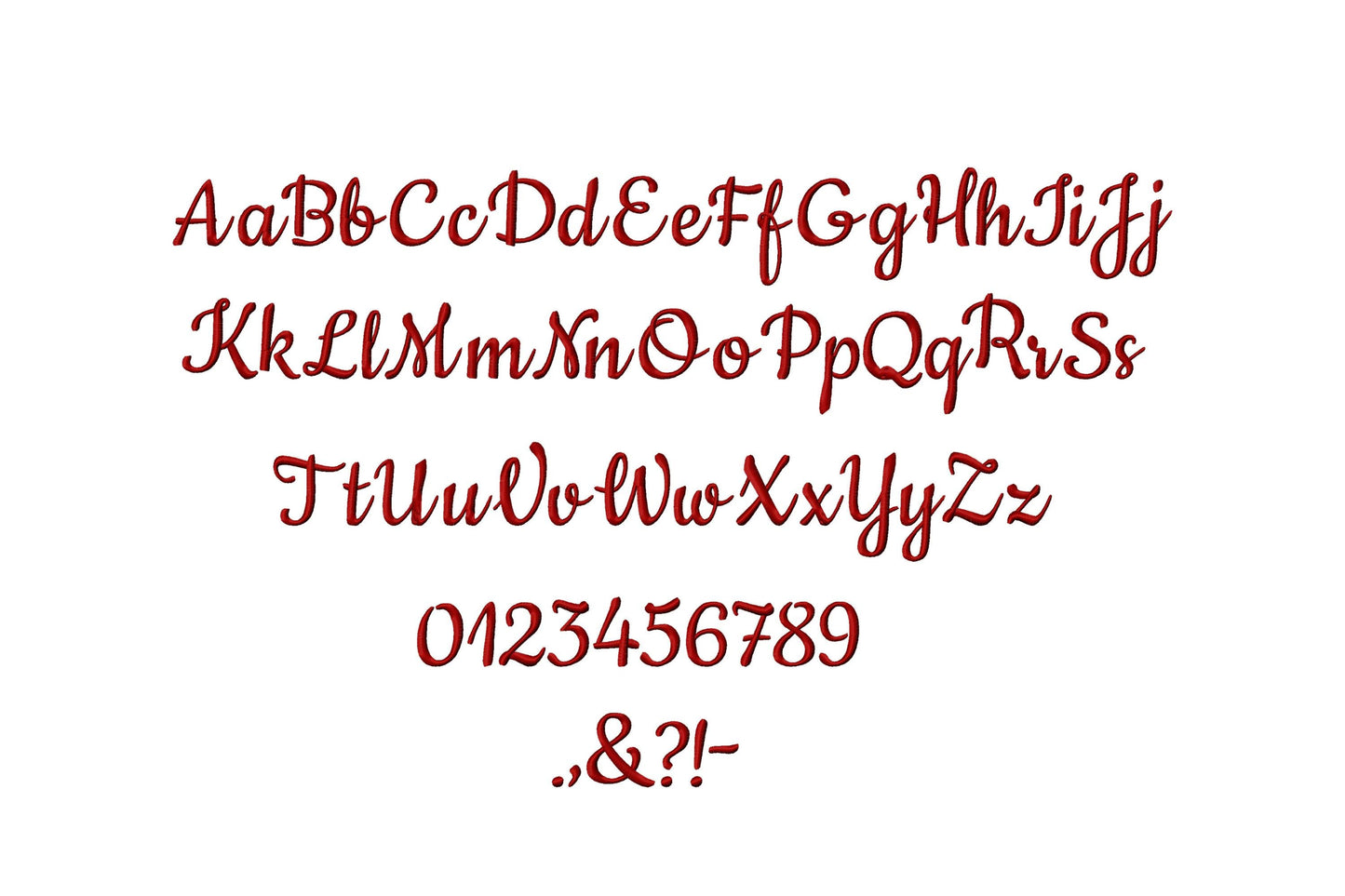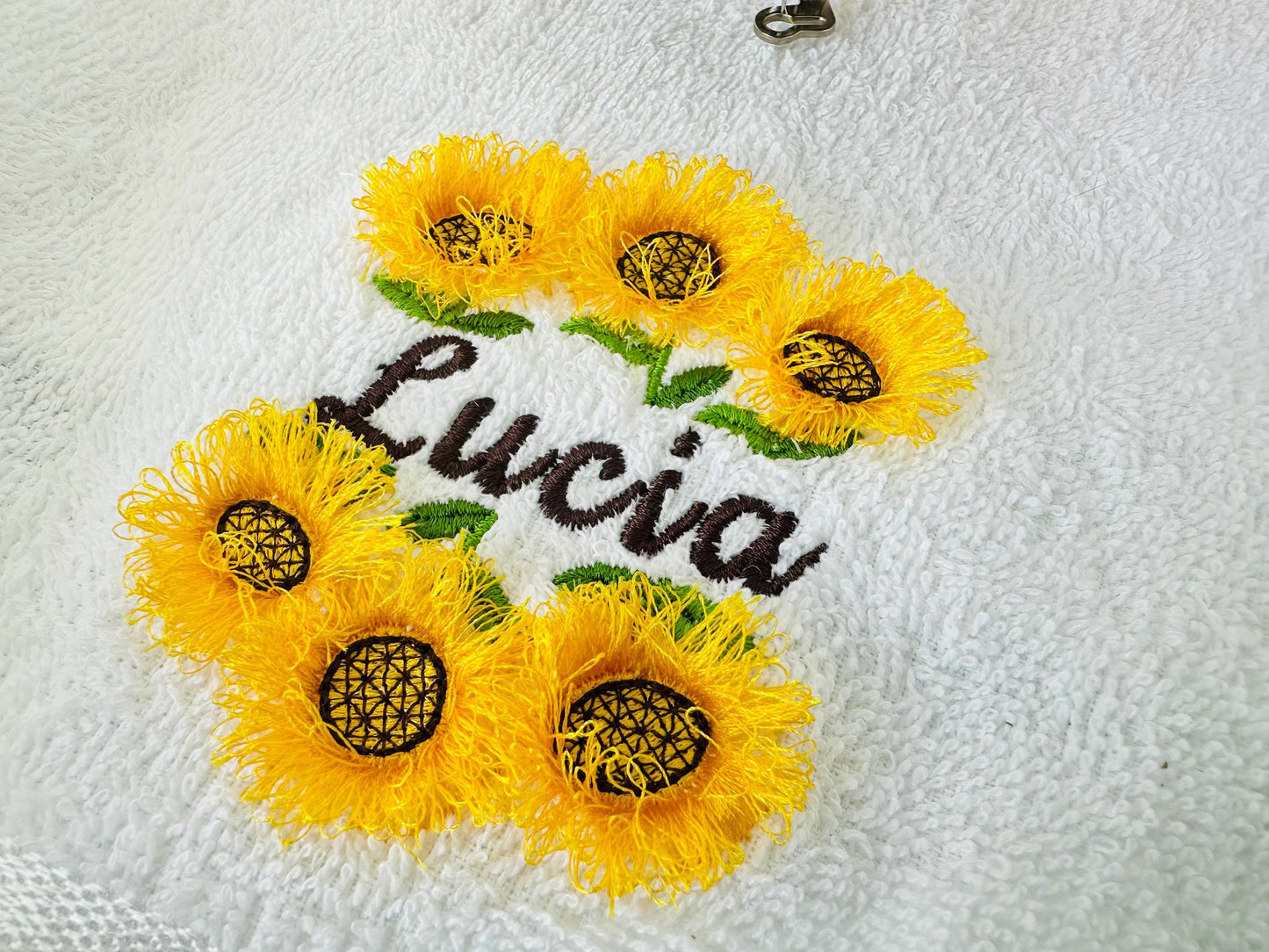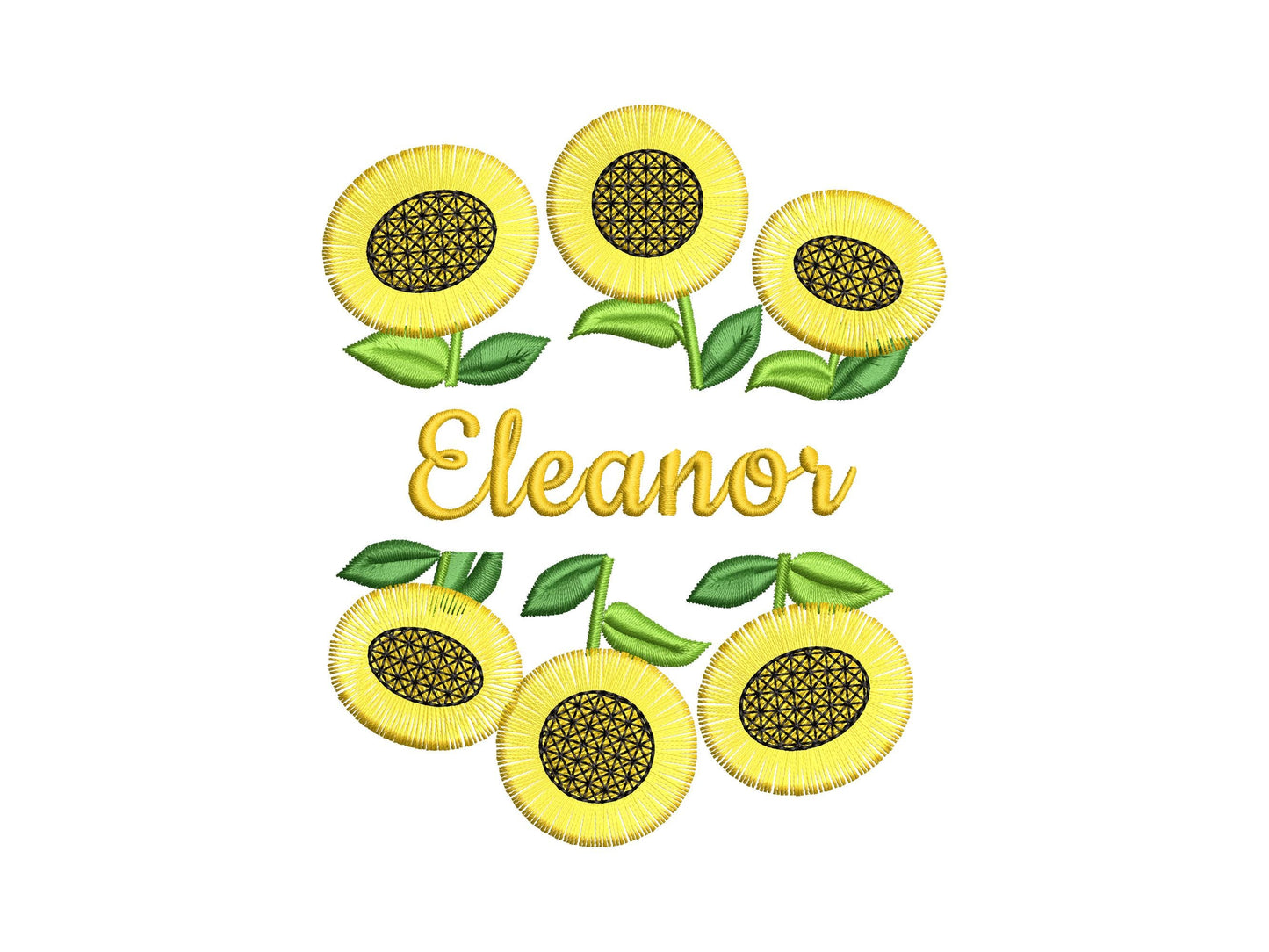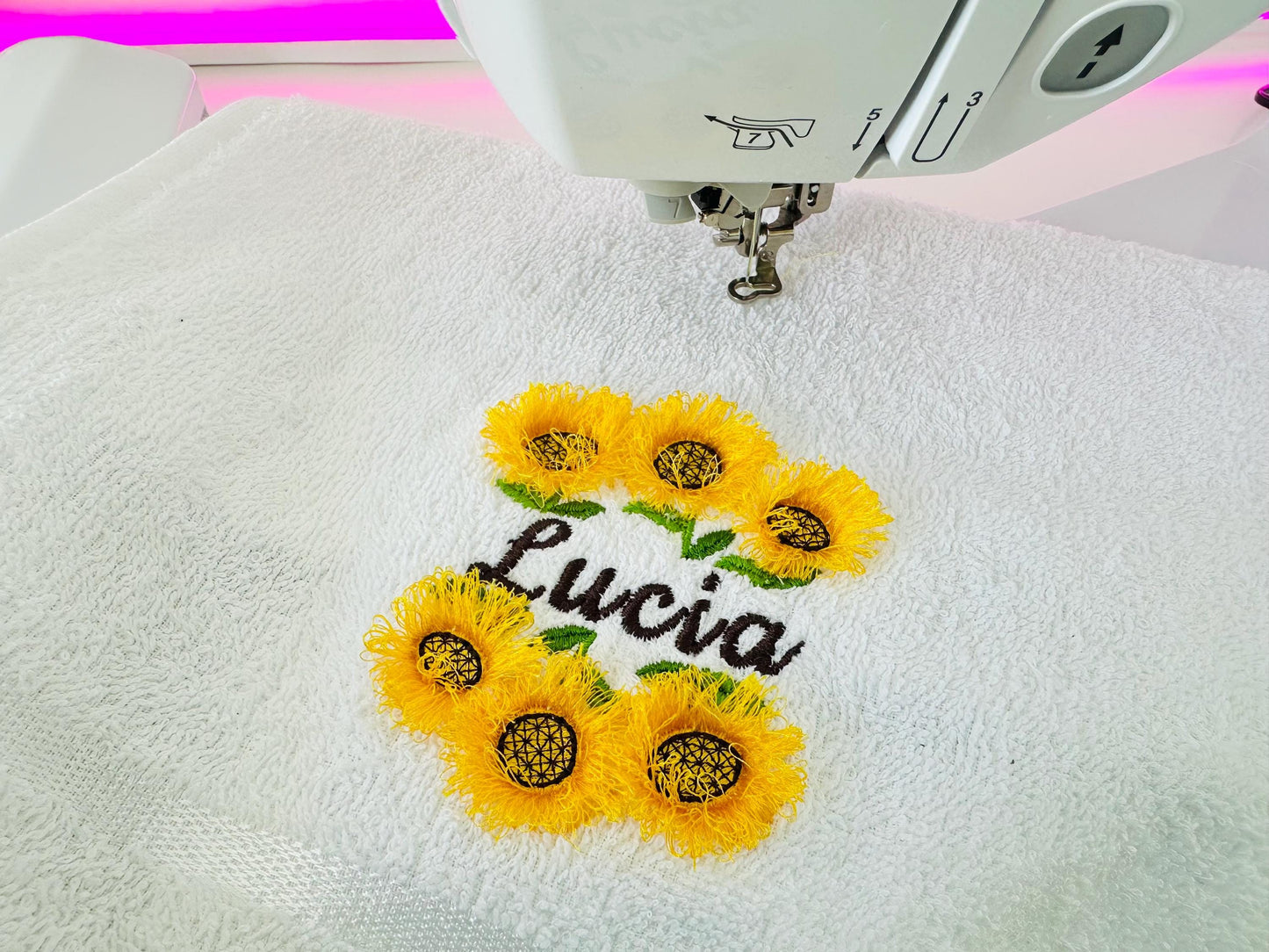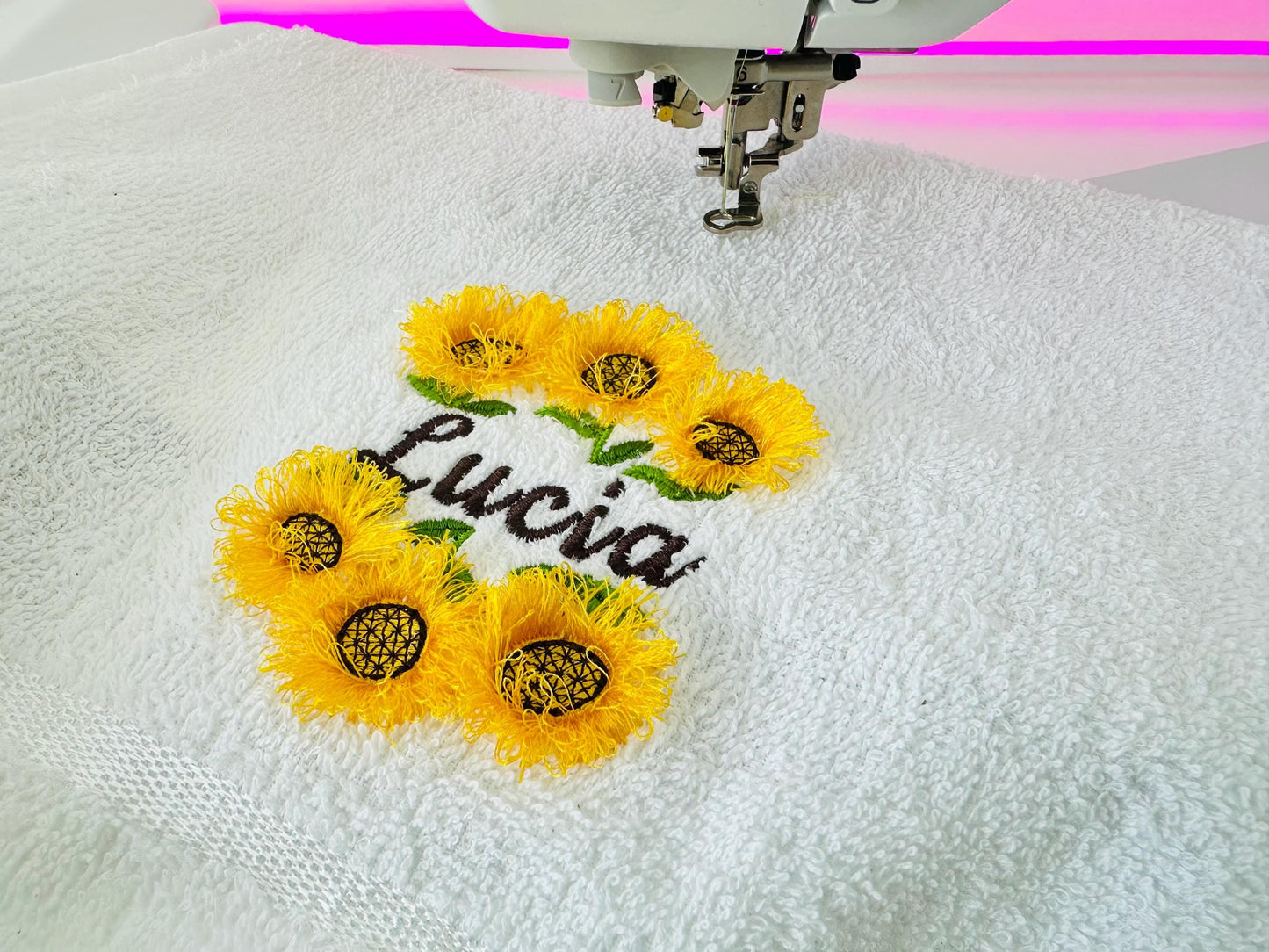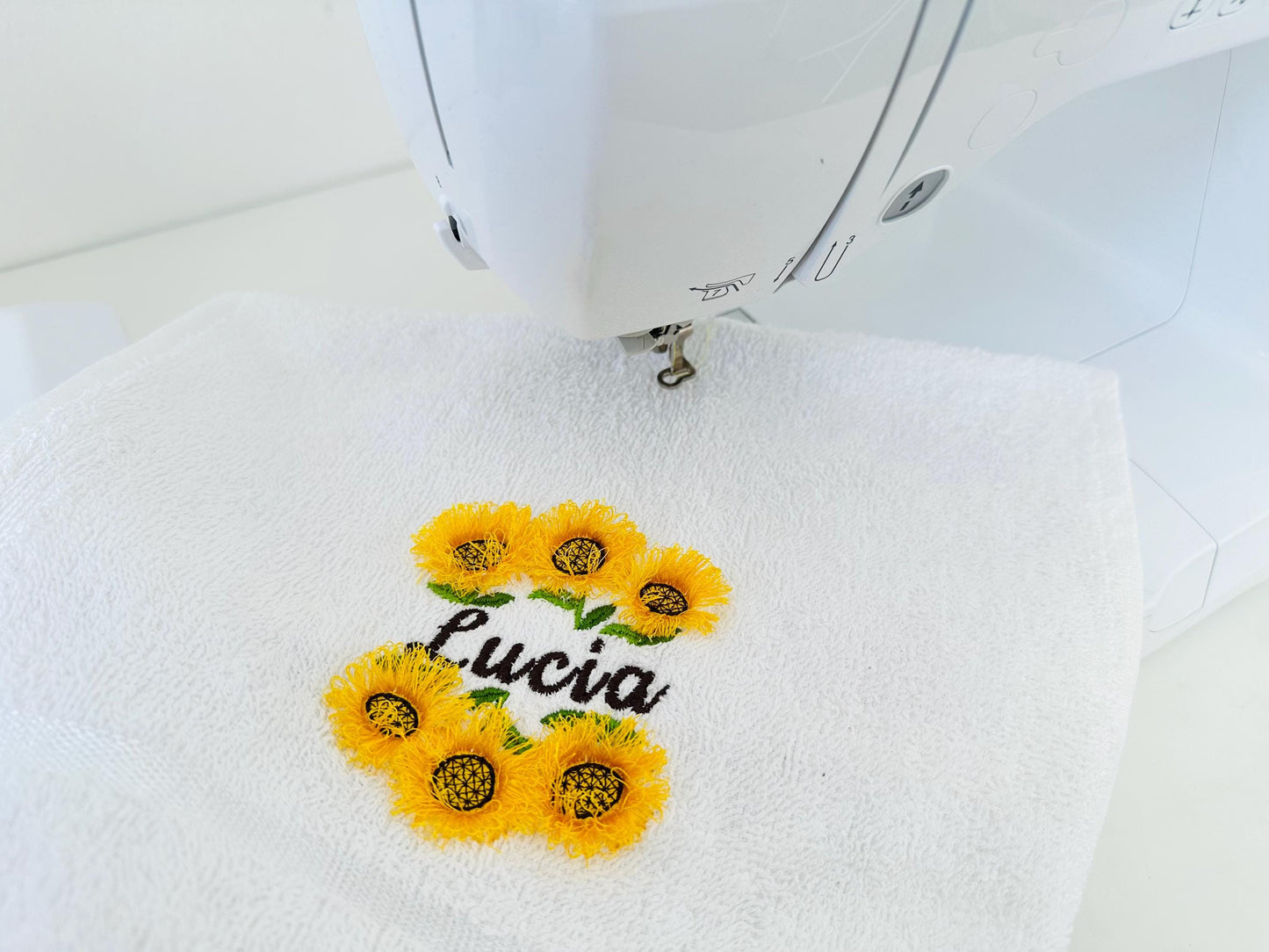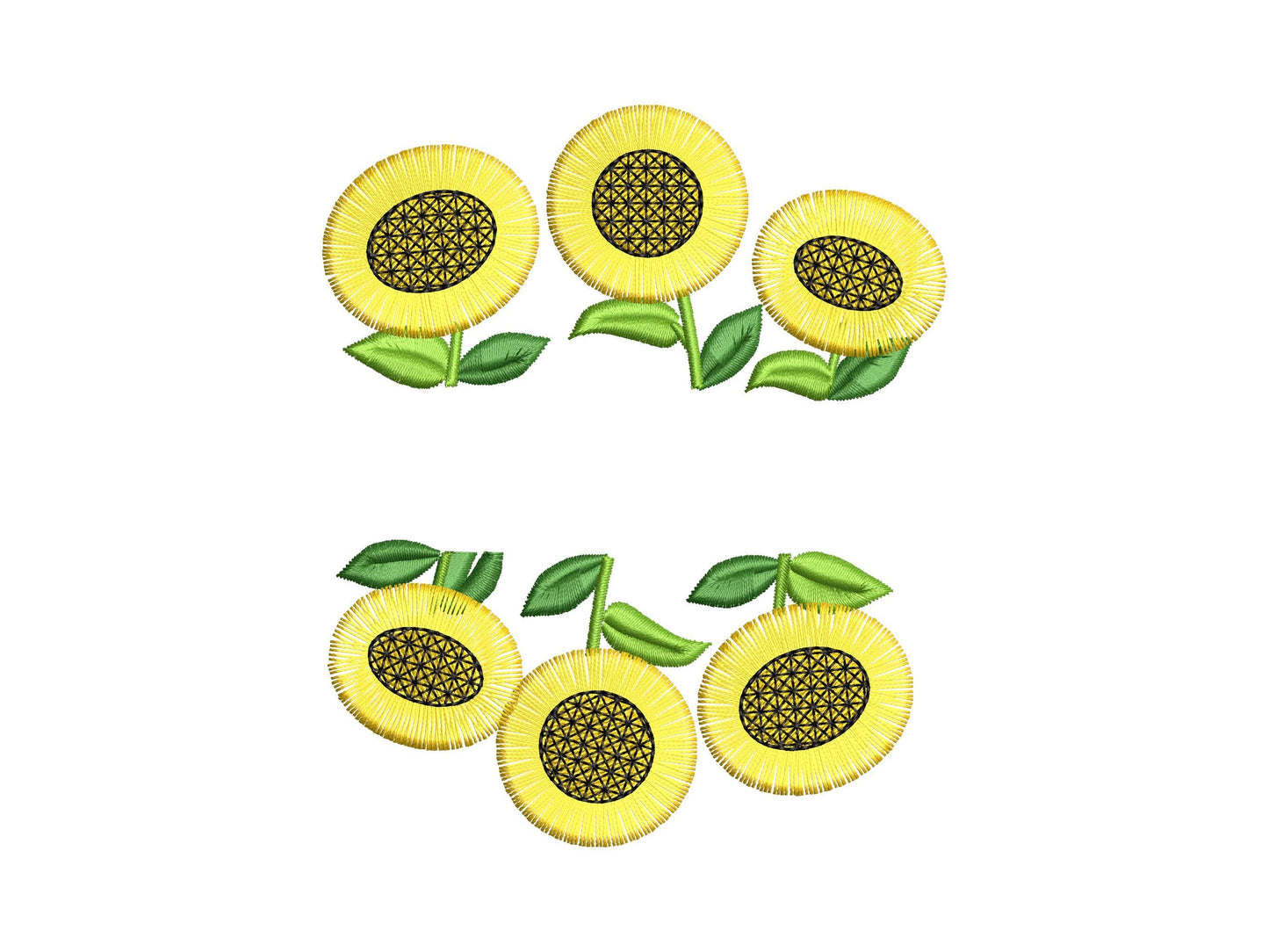
Or click to open the linkA split sunflower with fluffy fringed petals and a tiny matching font to put a name in the middle. Sweet on kids' shirts, tote bags and pillows.
The sunflower comes in four sizes: 4, 4.5, 5 and 5.5 inches. The mini font has uppercase and lowercase letters, numbers 0 to 9 and a few signs, in 0.4, 0.6 and 0.8 inches; any font up to 1.2 inch also fits. The fringe is cut on the back and fluffed up.